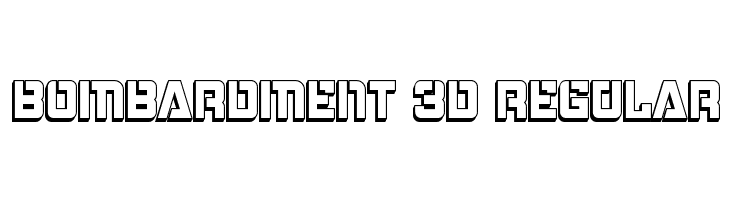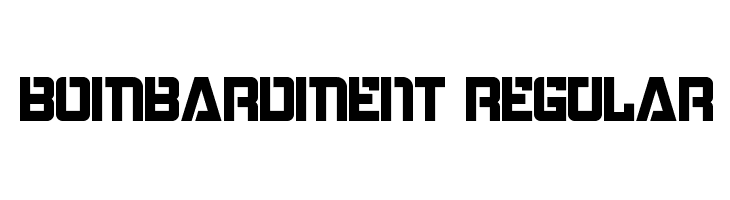
A bold, geometric outline font with a layered, dimensional style.
A bold, 3D geometric font with a futuristic and industrial aesthetic.
A bold, geometric font with strong, angular lines and a modern aesthetic.